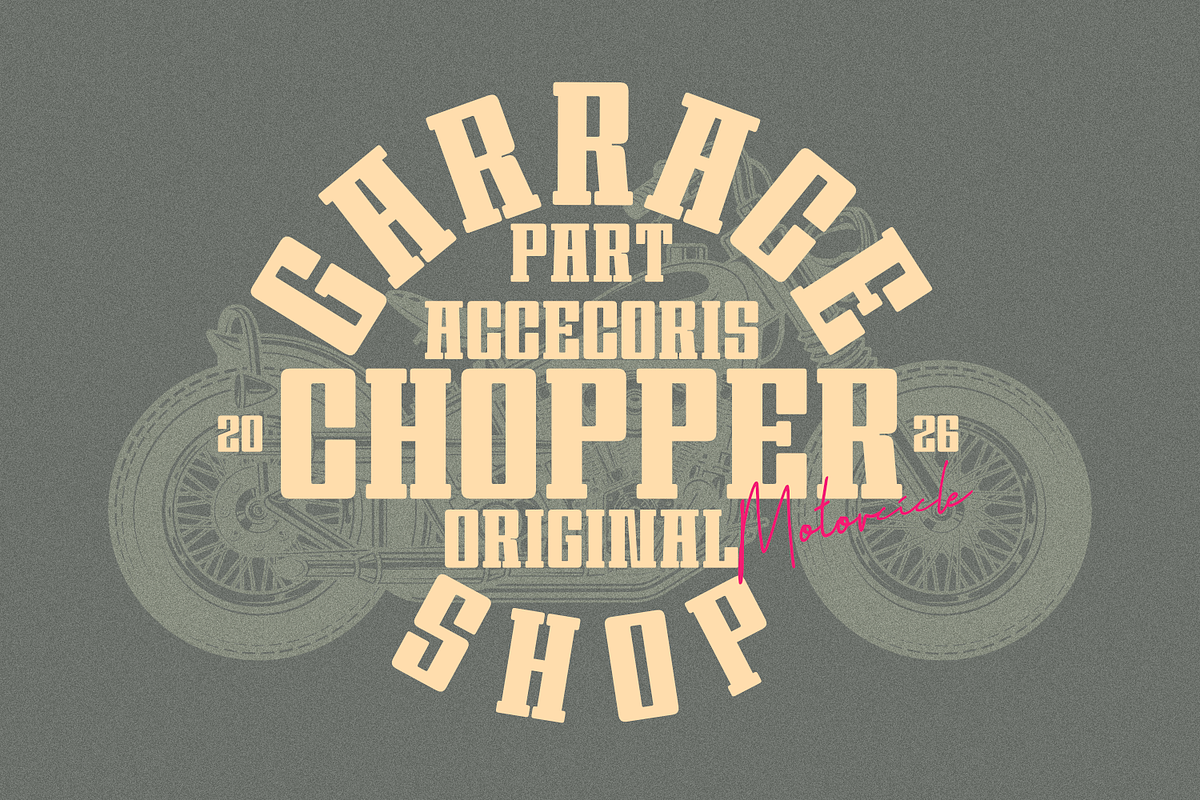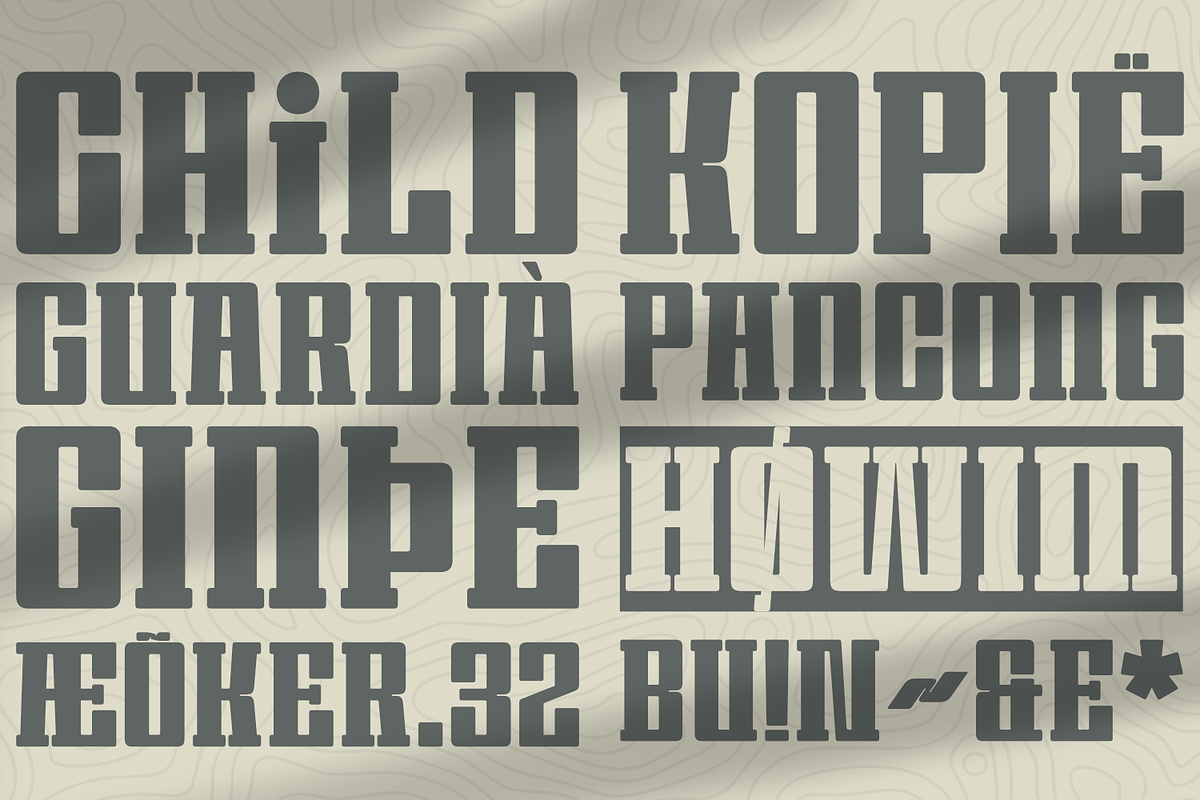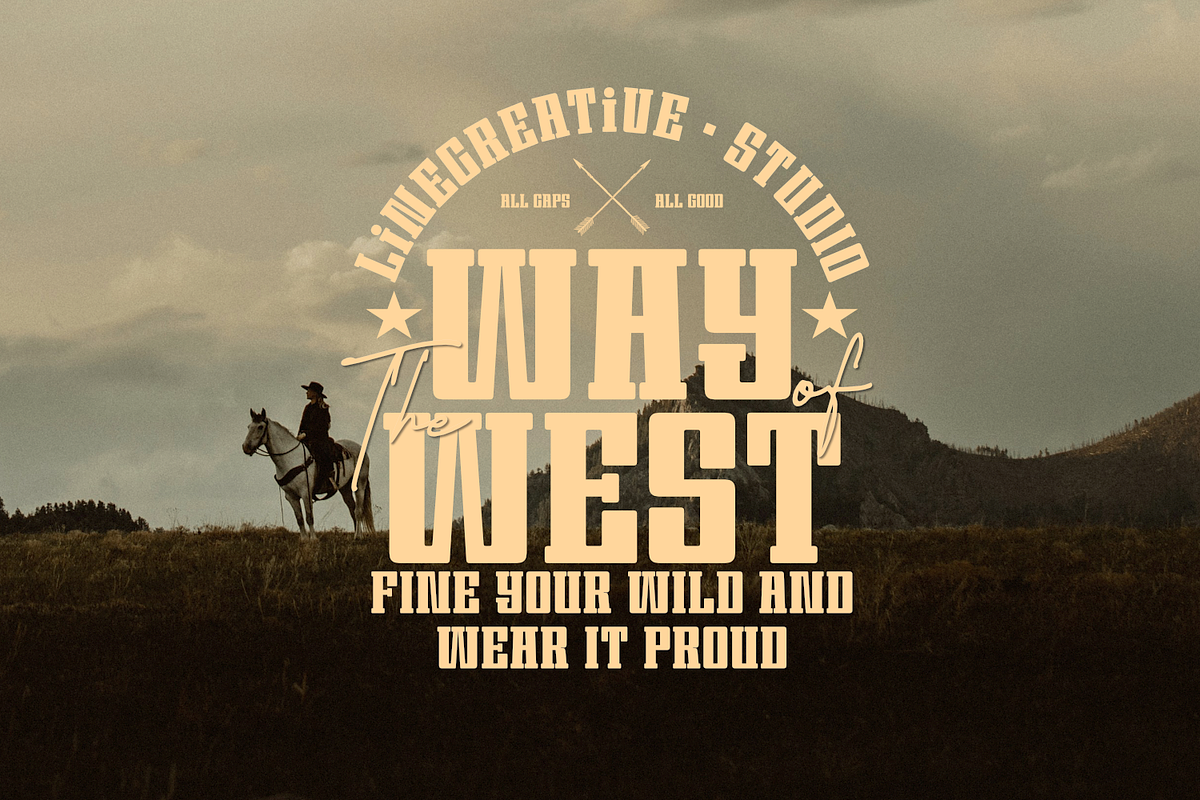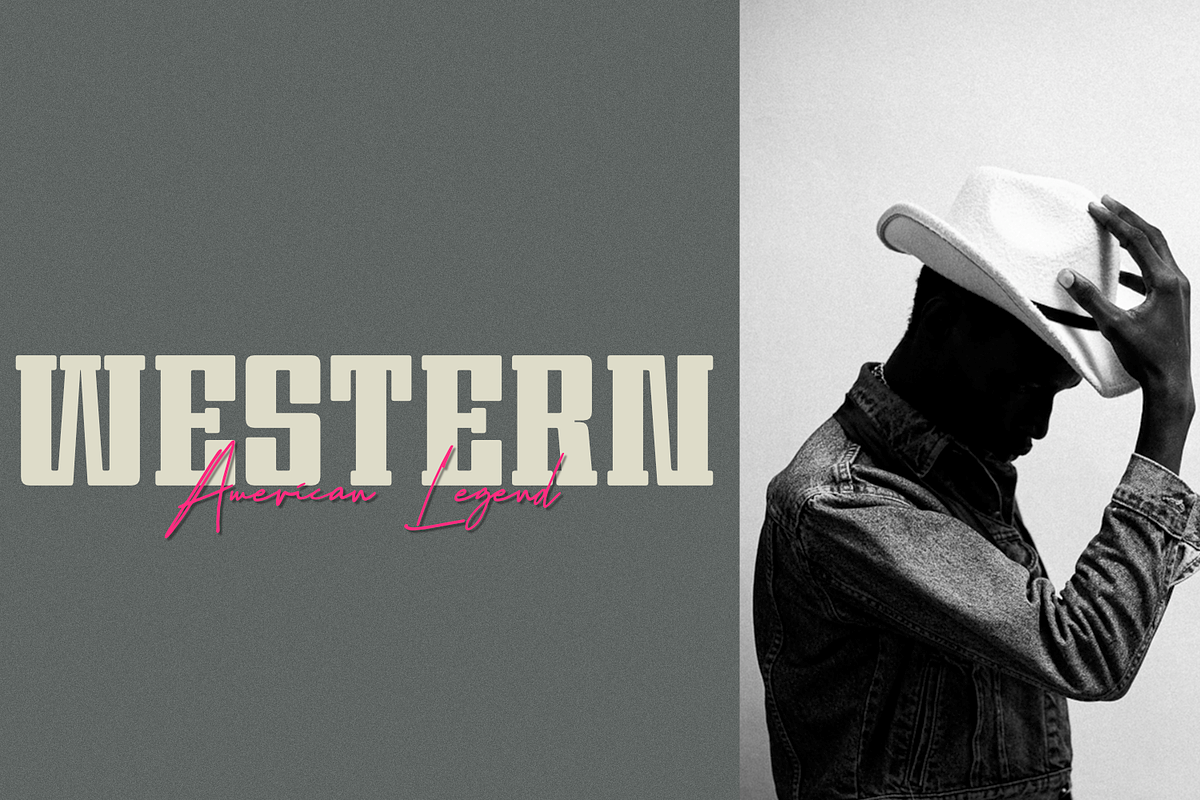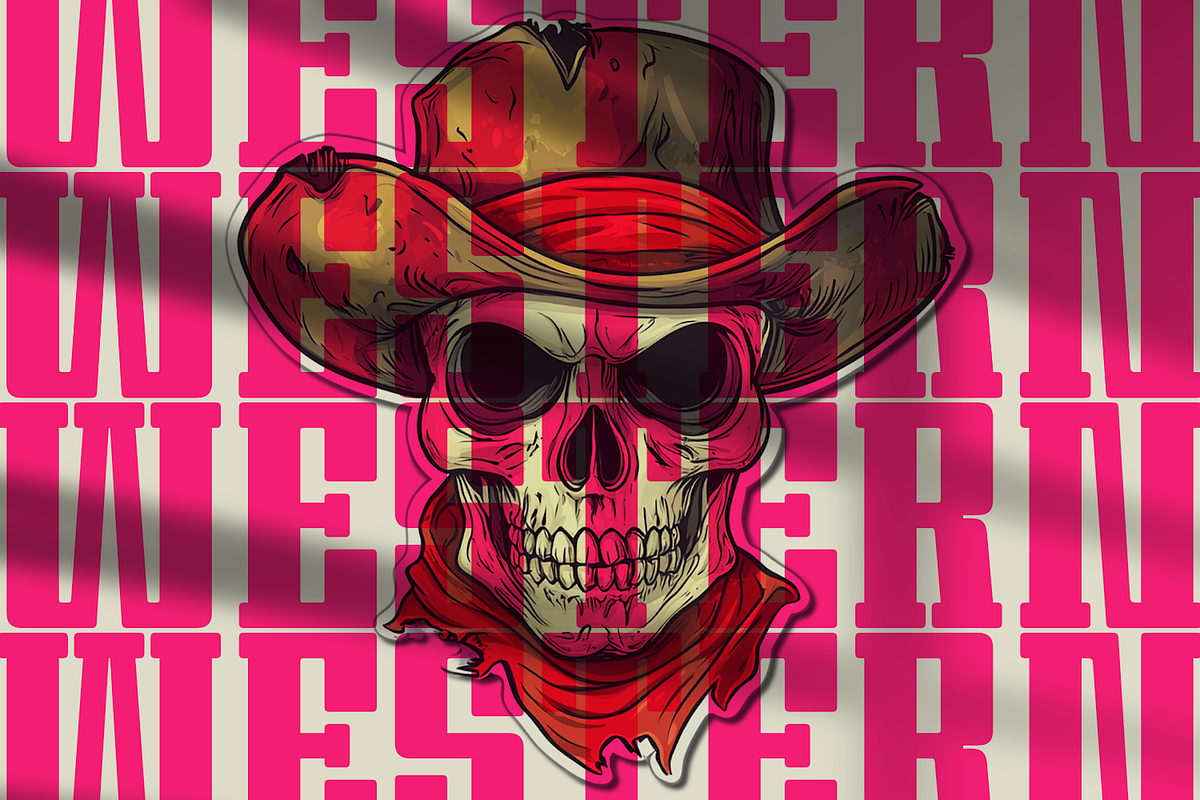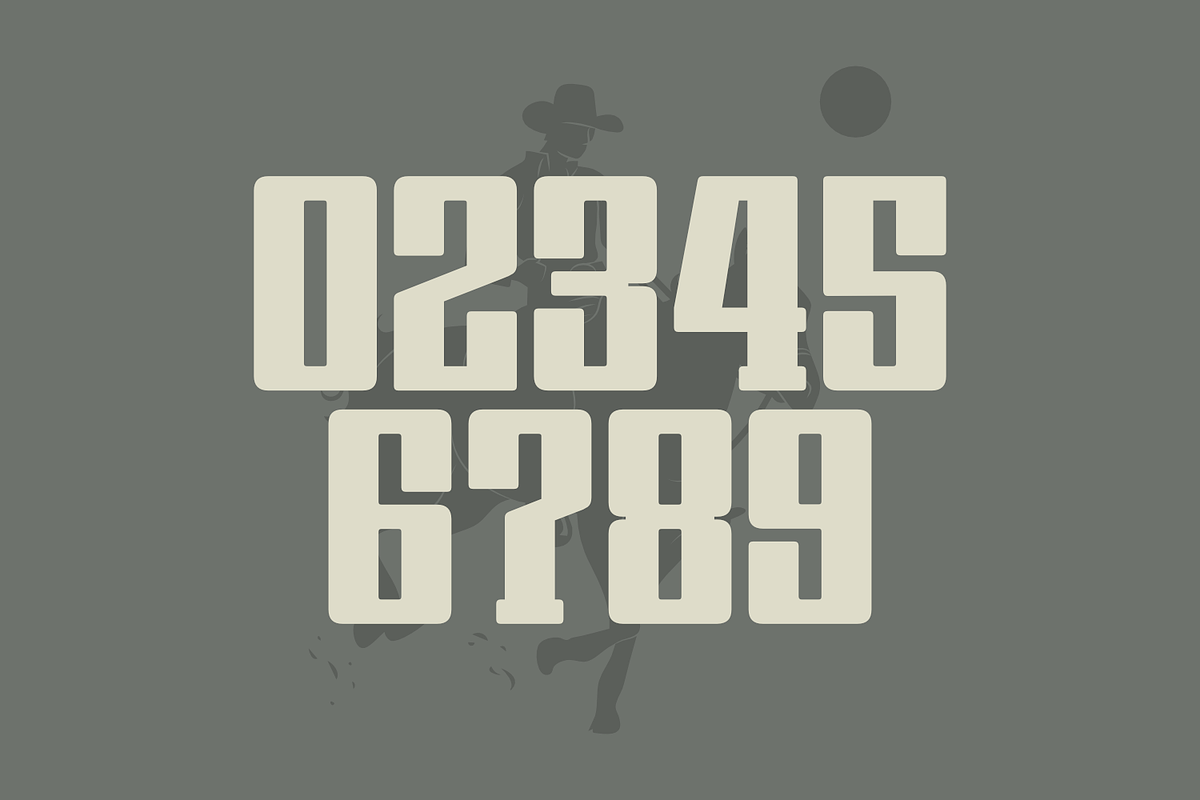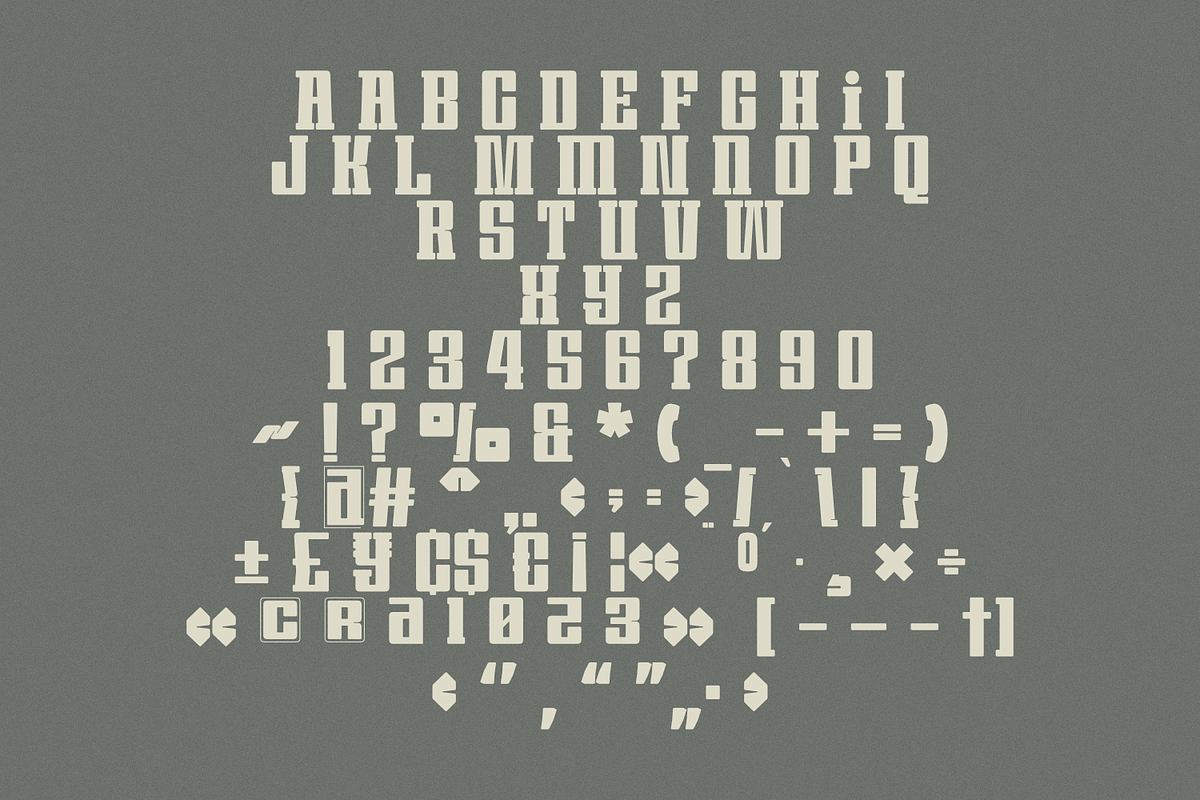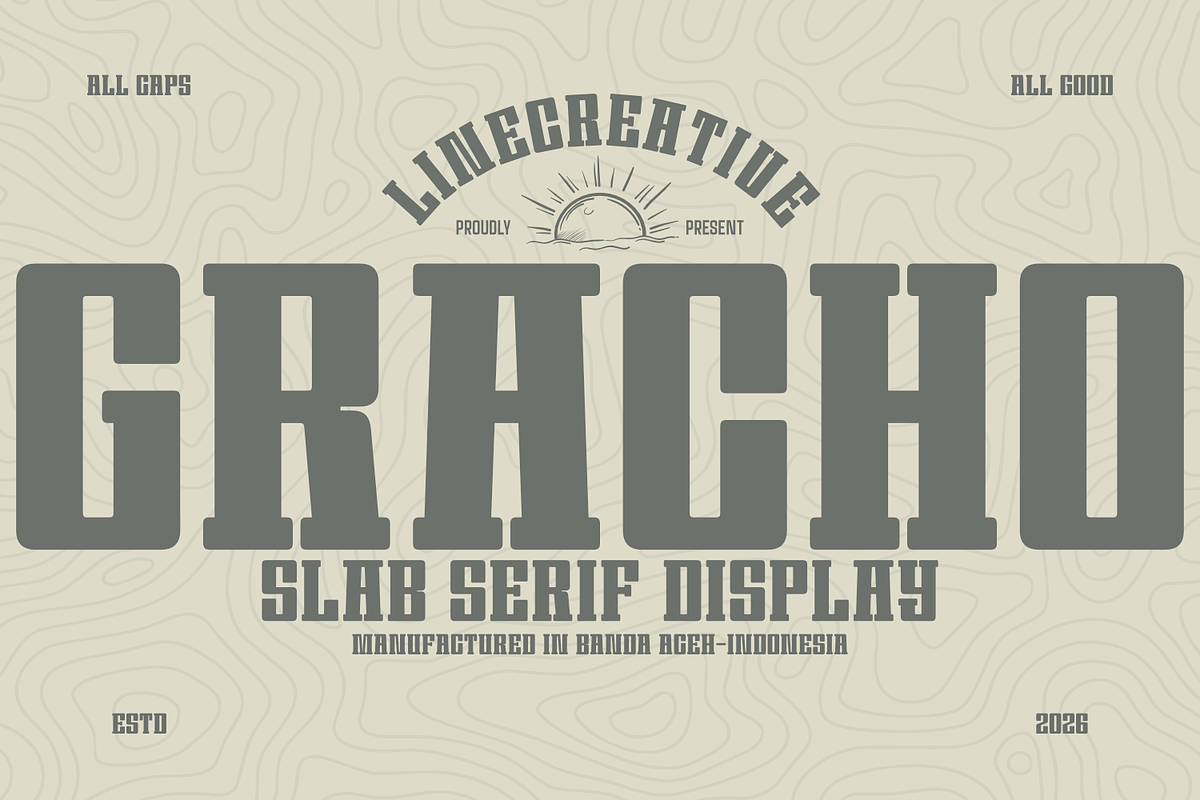
Gracho
Gracho is a bold slab serif display font designed with a strong, confident, and commanding character. Inspired by vintage and industrial aesthetics, it features solid letterforms, wide proportions, and thick, consistent slab details that create a powerful visual presence. This font stands out with its sturdy structure and masculine tone, making it highly suitable for headlines, logos, posters, branding, and designs with retro, western, or heritage themes. Gracho blends classic influence with a modern touch, ensuring versatility across various contemporary design needs. Presented in an all caps style, Gracho delivers a dominant and assertive typographic voice. Its excellent readability at large sizes allows it to capture attention effortlessly while maintaining clarity and impact. What you get: • Gracho, all caps (otf,ttf,woff) • Multilingual support • Numeral and Punctuation Gracho is an ideal choice for designers seeking a bold, timeless, and authoritative visual identity.